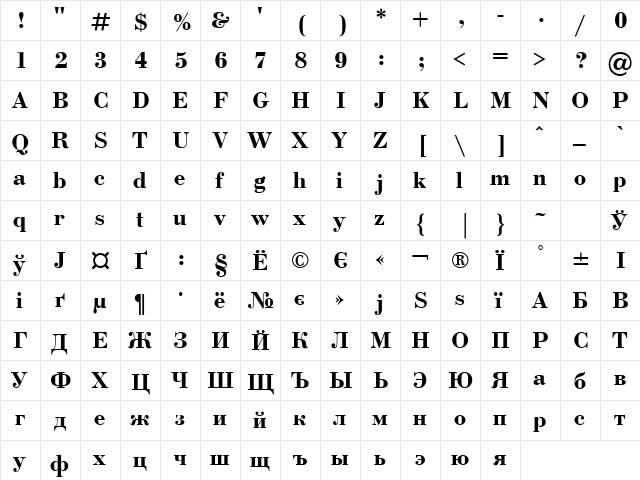
Bodoni Bold Cyrillic
Design Context for Bodoni Typeface
Bodoni offers clean, dependable letterforms without strong stylistic allegiance, making it a practical choice for designers who need flexibility. Its bold stroke weight gives it real presence on the page.